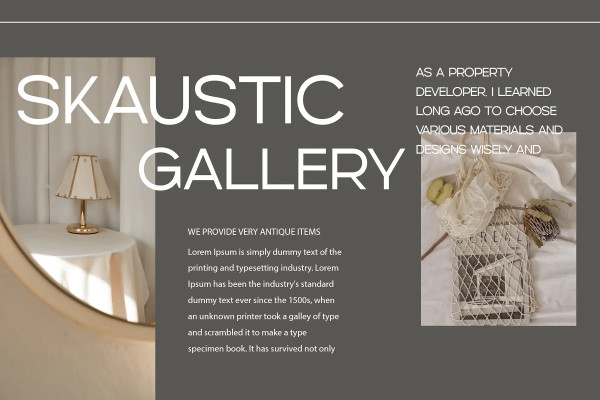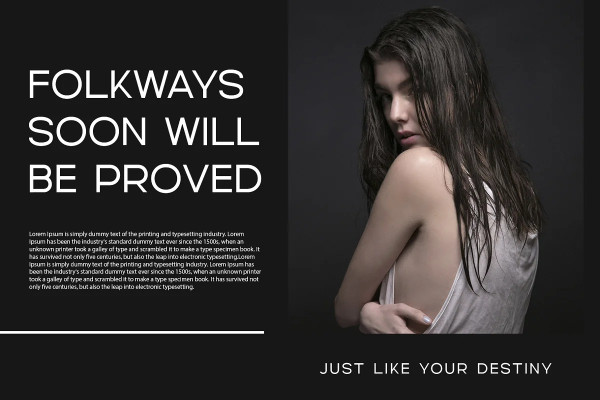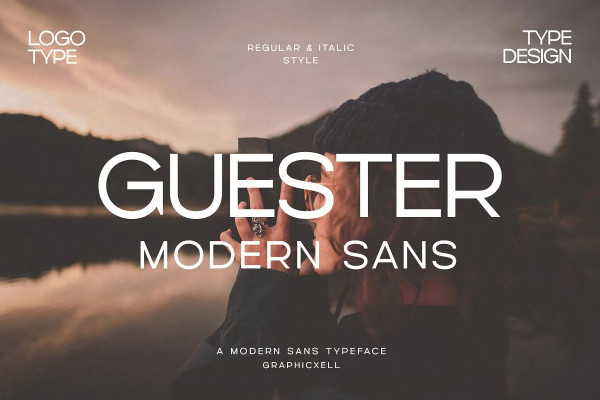
Guester Font
Guester Font – Modern Sans Typeface inspired by the famous minimalist logo perfect for the purposes of designing templates, brochures, videos, advertising branding, logos, invitation, layout design, elegant crafting, beauty design and more.